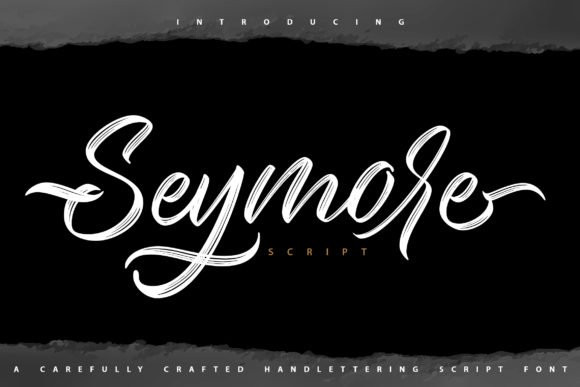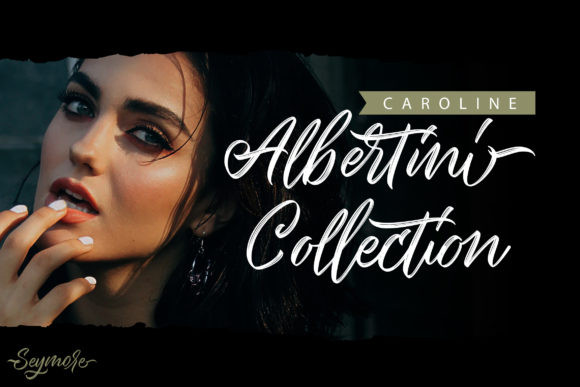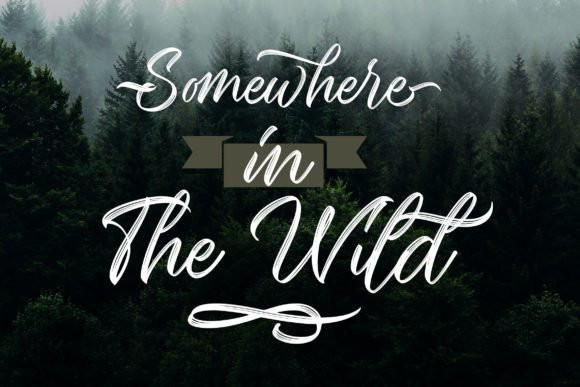
Seymore Font
Seymore is a brushed and trendy handwritten font. It will enhance each of your designs and it will add an incredibly sweet and unique touch to each of them.